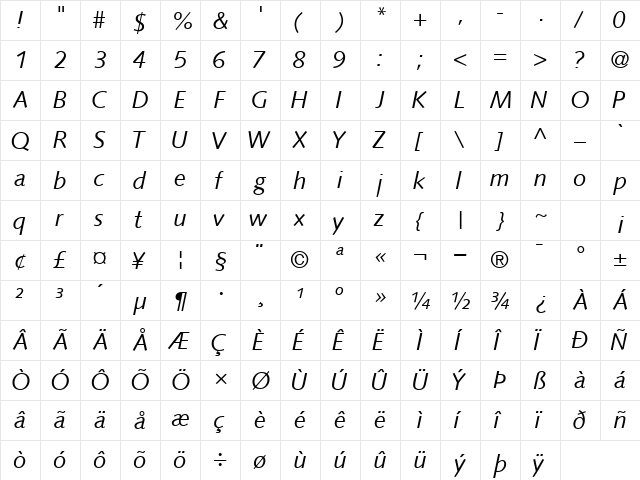
FacileSSK Italic
Design Context for FacileSSK Typeface
FacileSSK is a composed and adaptable typeface that performs quietly and consistently across a wide range of design contexts. Its italic angle brings a sense of urgency and motion to the letterforms.
Pro Tip: Use FacileSSK for emphasis, pull quotes, and subheadings where its slanted energy can add rhythm to the layout.